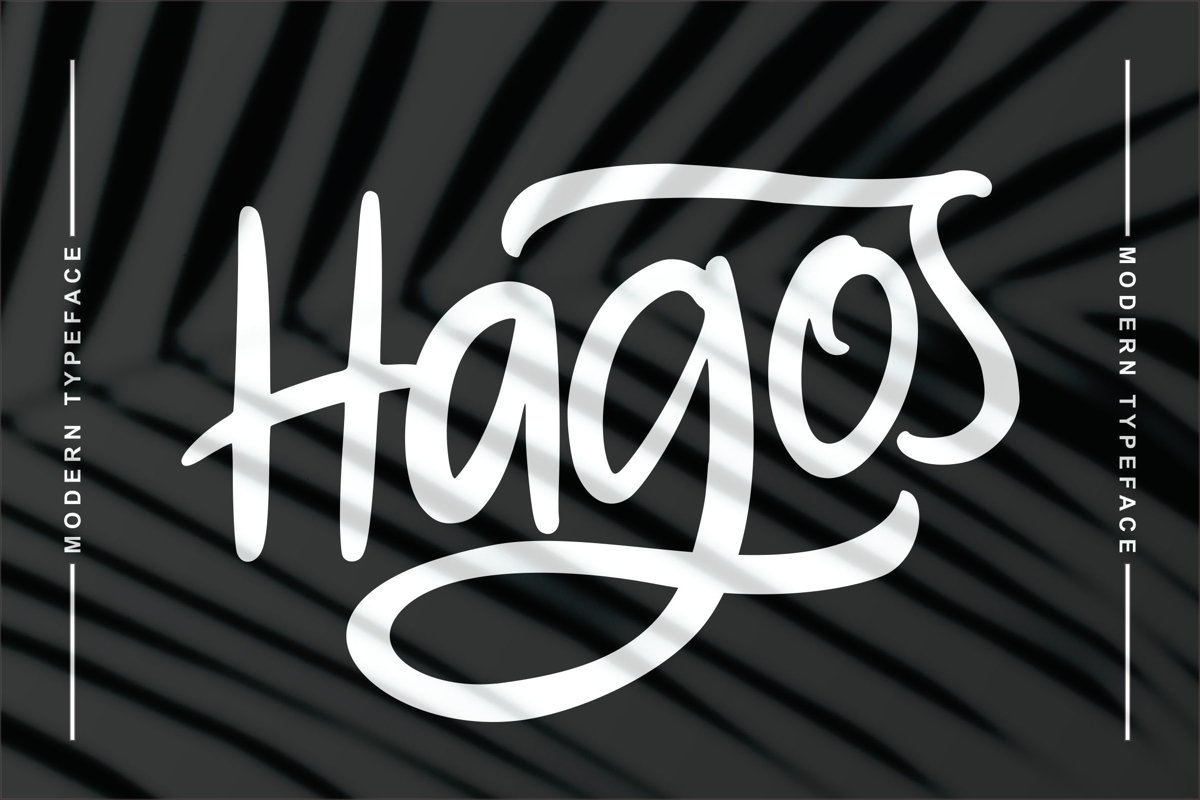
Hagos | Modern Typeface Script
Hagos
**Hagos | Modern Typeface Script** with a calligraphy style, So beautiful on invitation like greeting cards, branding materials, business cards, quotes, posters, and more!
* Alternates and Ligatures